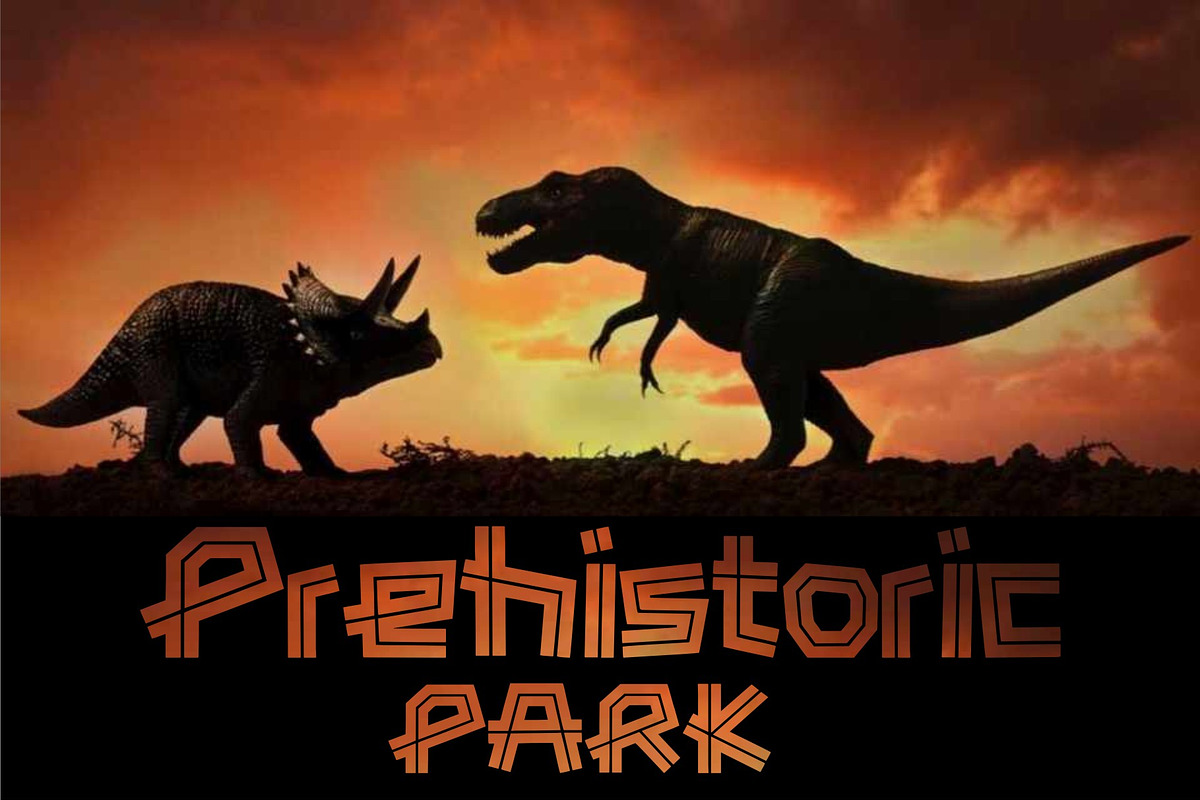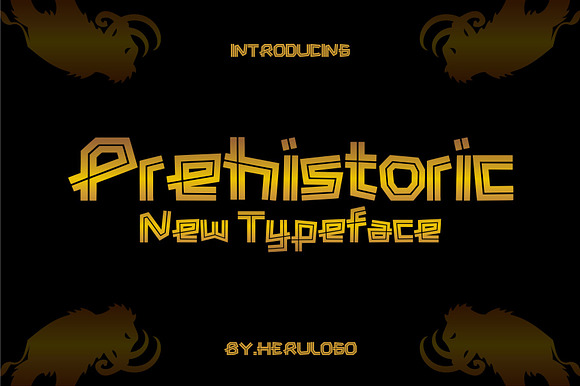
Prehistoric Typeface
Prehistoric is a unique typeface with modern and sharp
Why Prehistoric Typeface is worth a look
Prehistoric Typeface by herulogo fits naturally into Branding, posters, packaging, typography.